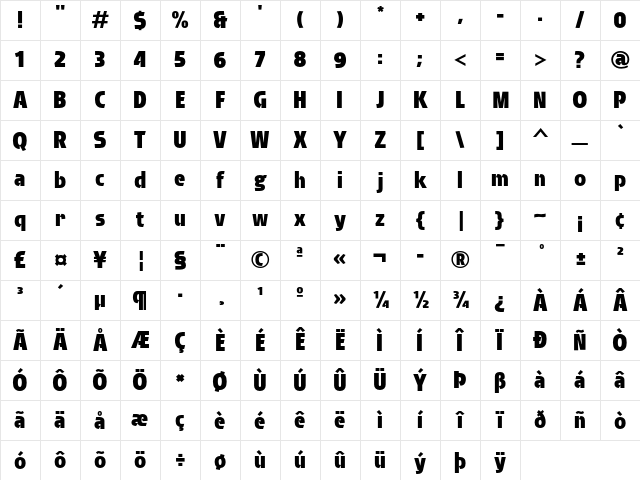
Brda LT Std Extra Bold Free Font
Brda LT Std Extra Bold
Style: Extra Bold
Designer: Franciszek Otto
Design Context for Brda LT Std
Brda LT Std is a composed and adaptable typeface that performs quietly and consistently across a wide range of design contexts. Its bold stroke weight gives it real presence on the page.